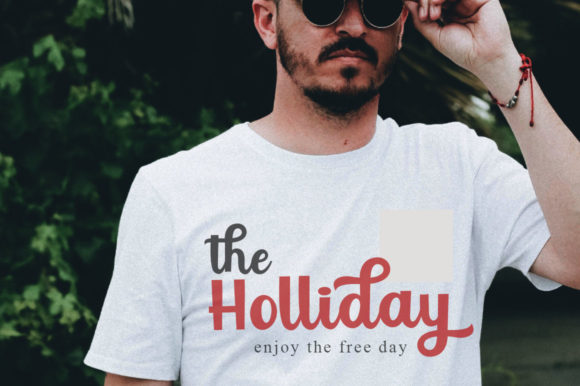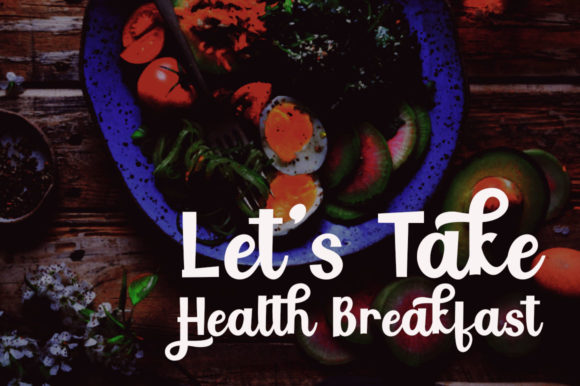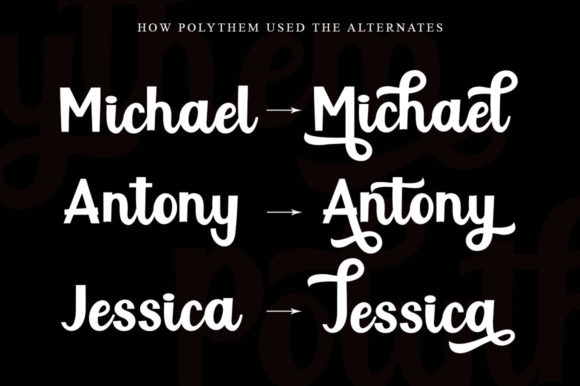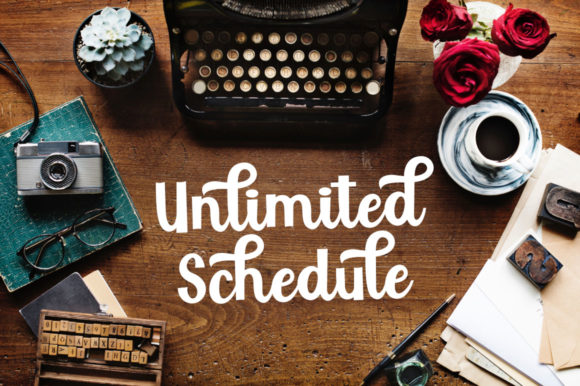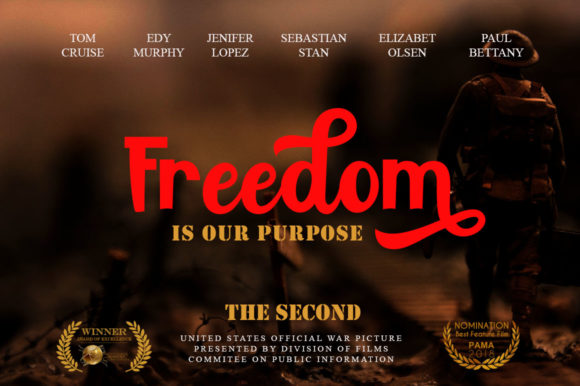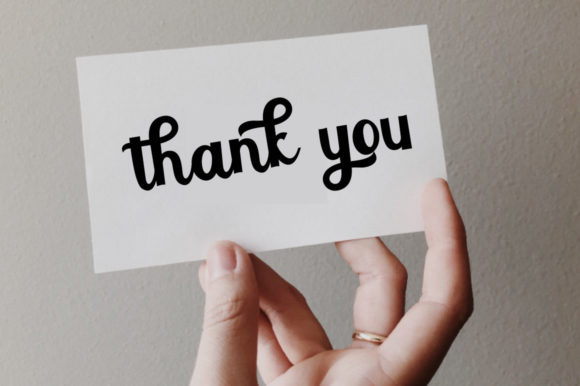
Polythem Font
About Polythem Font
The Polythem is a beautiful high bold script. It’s perfect to use together with layer masks in Photoshop, so it looks like the script is running through the lines of the sans serif.